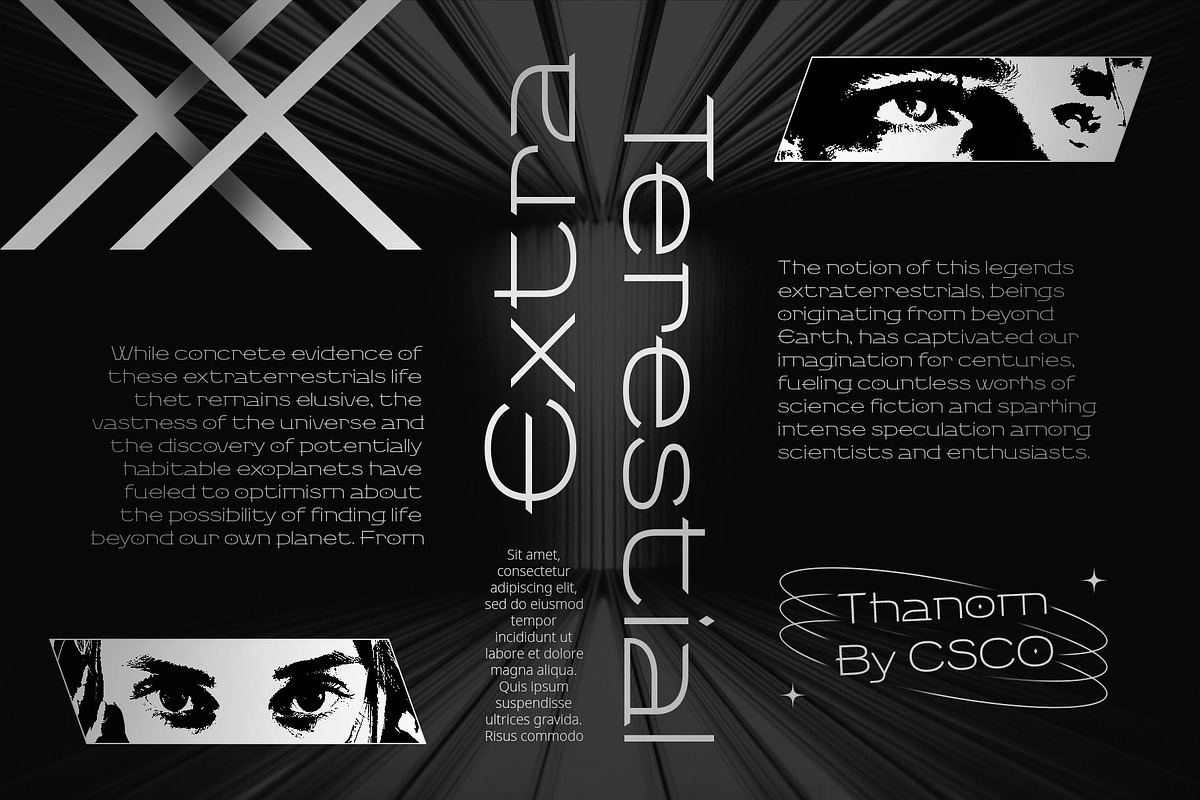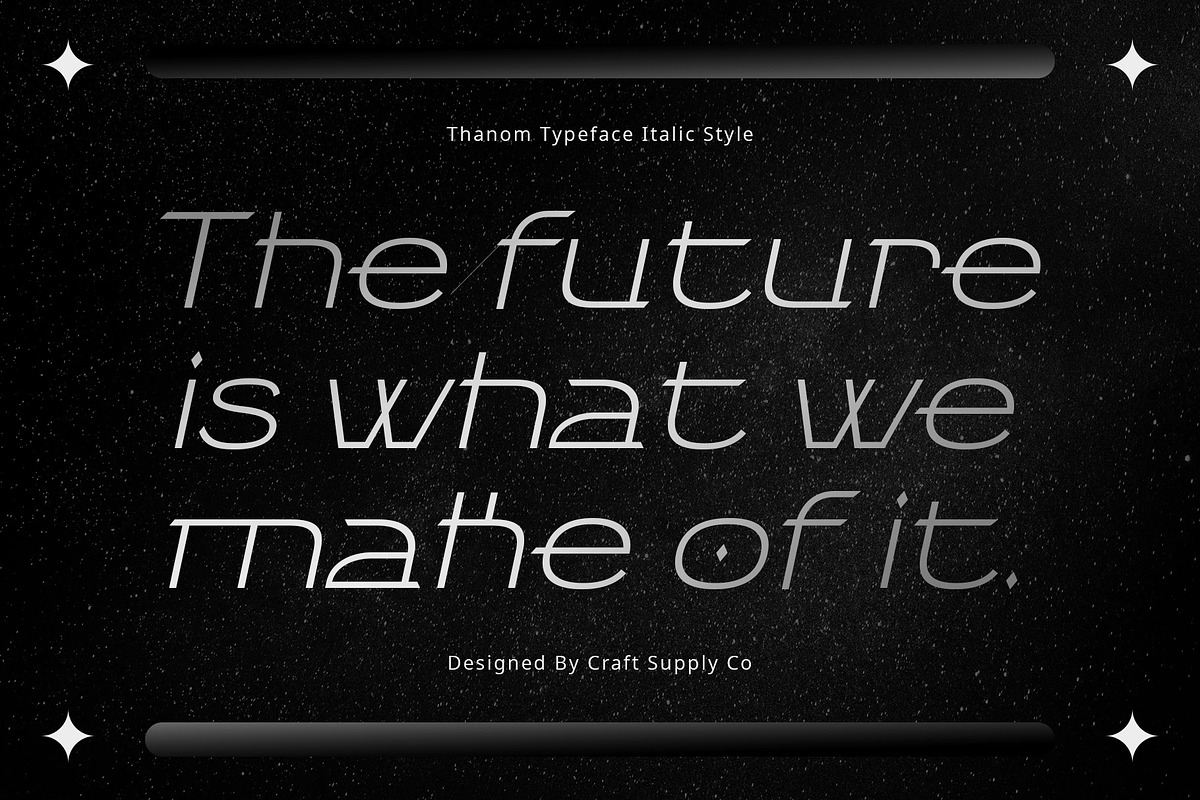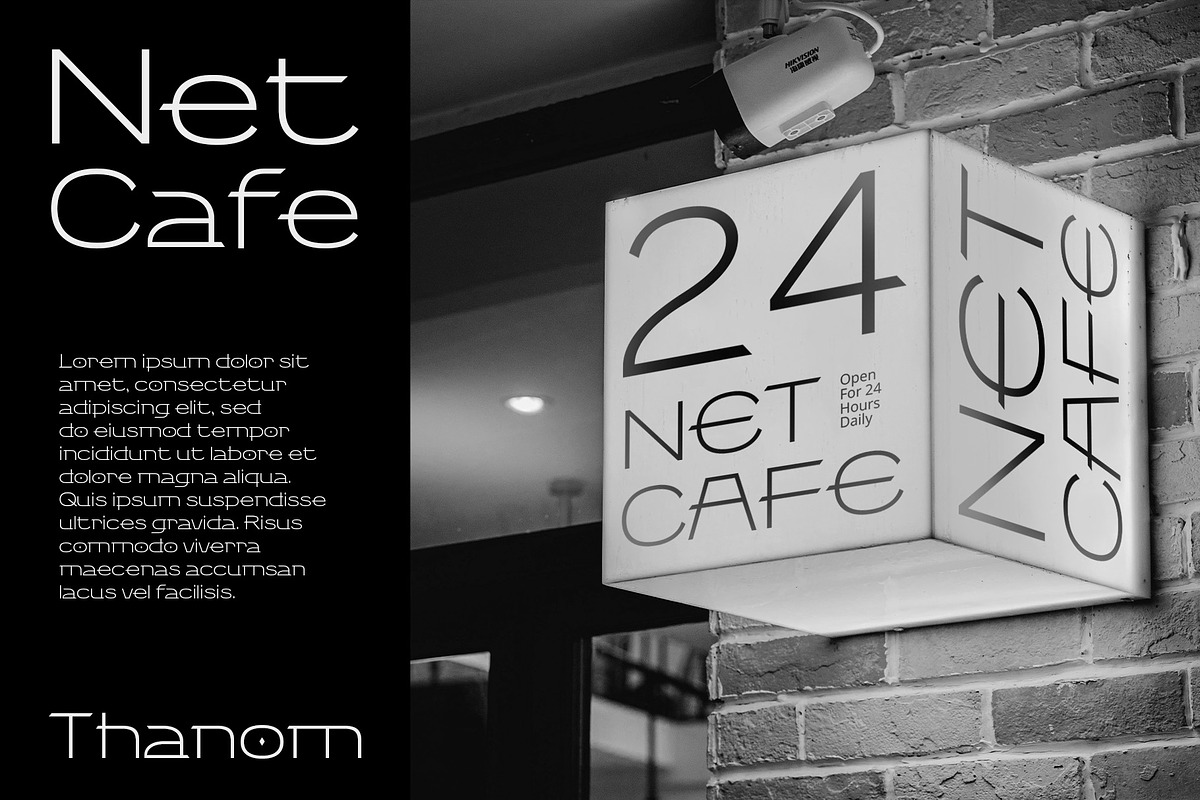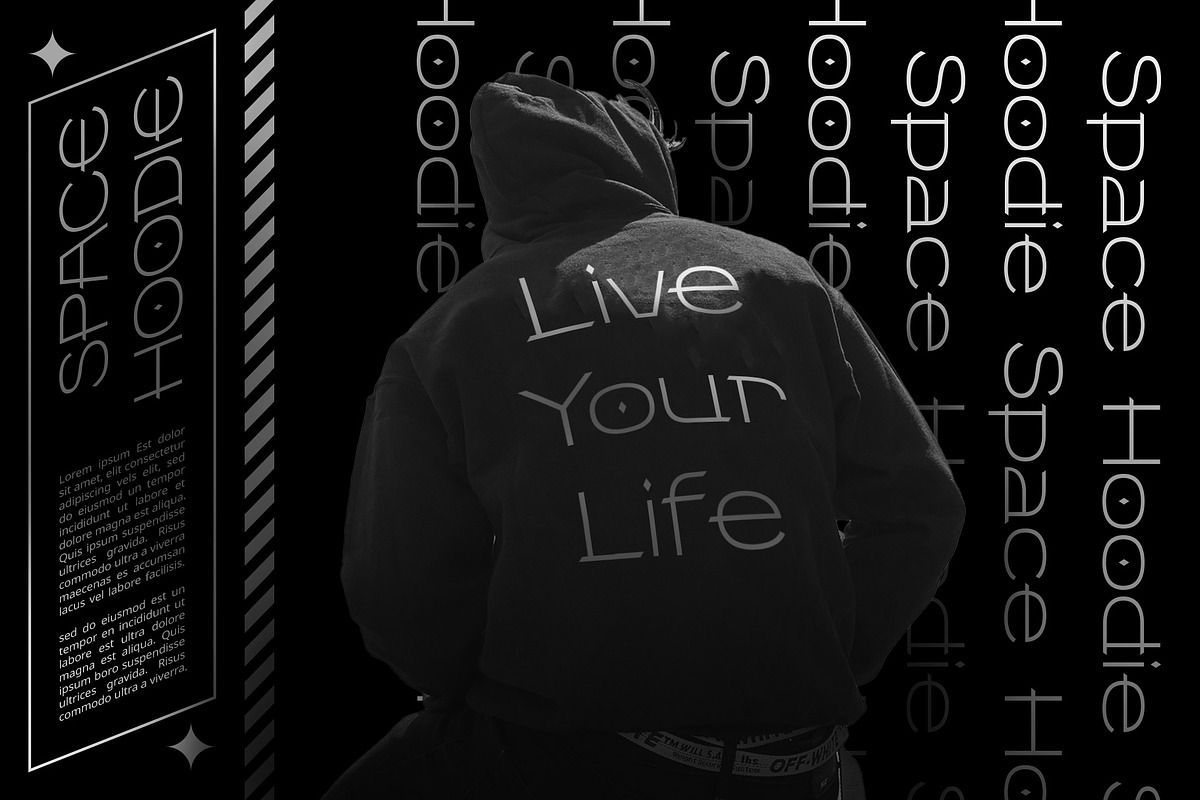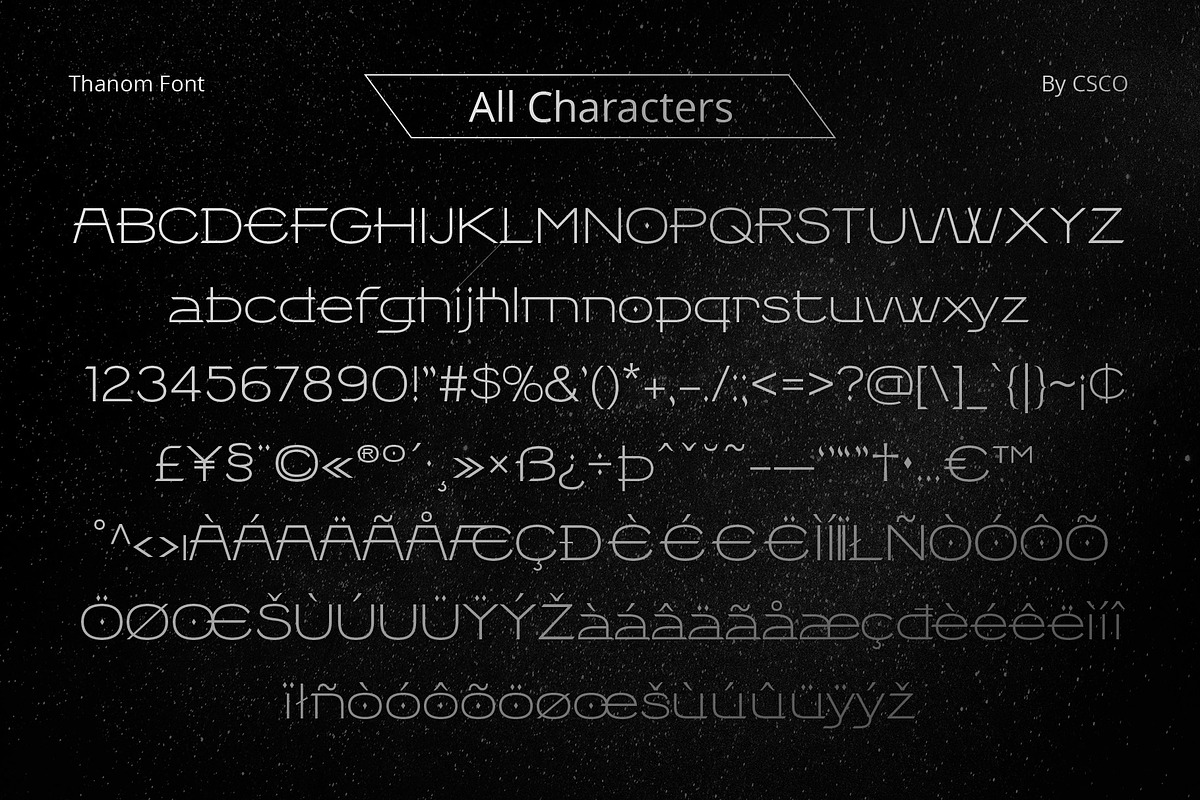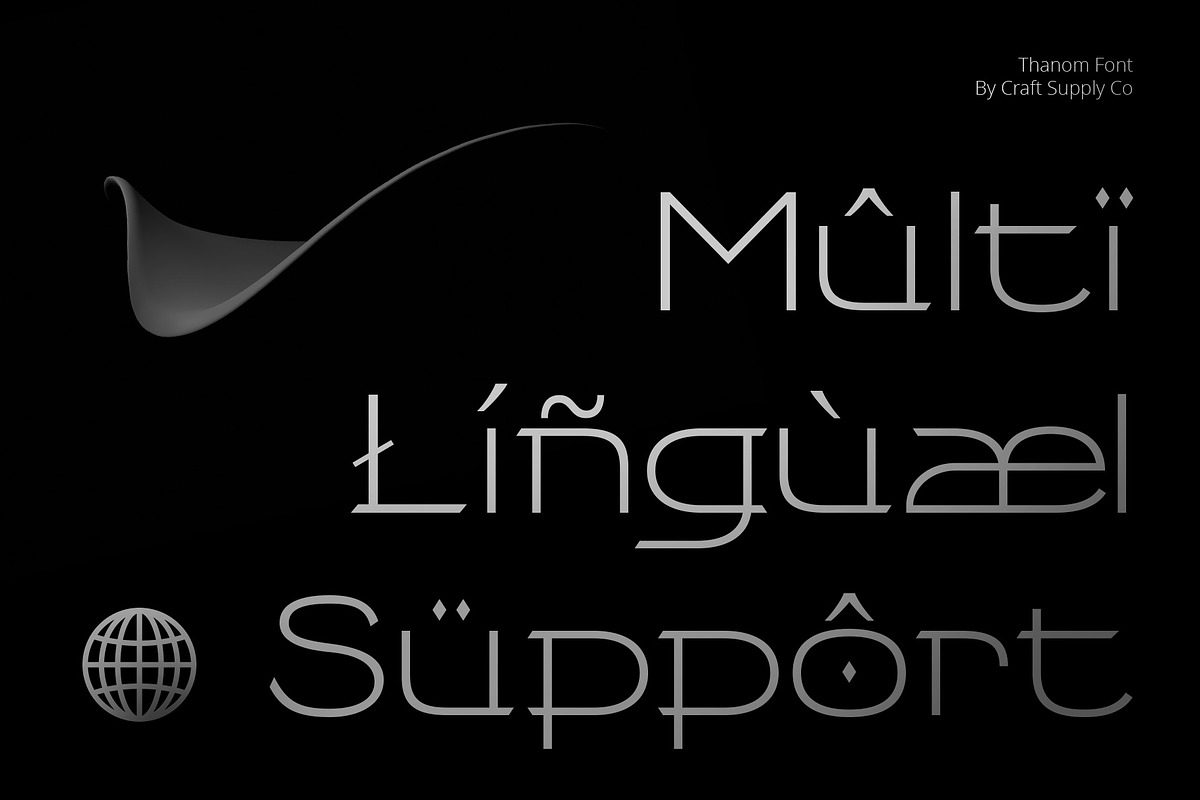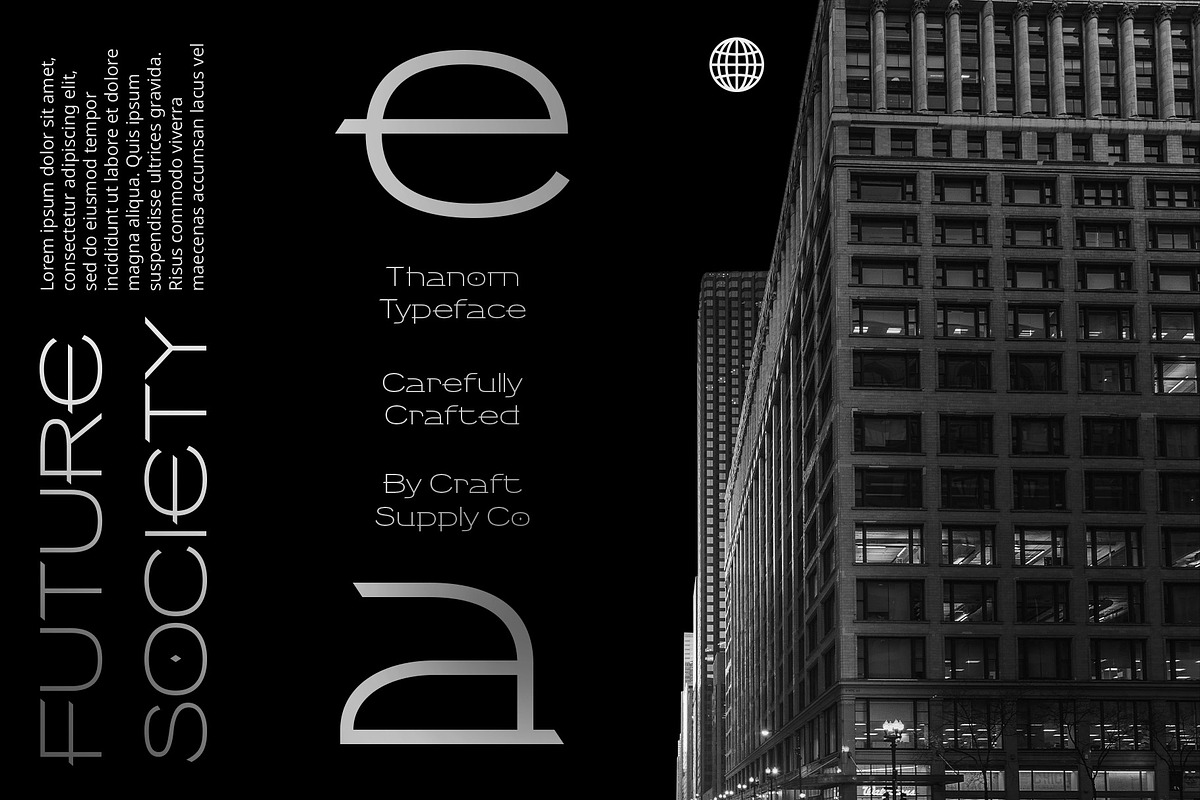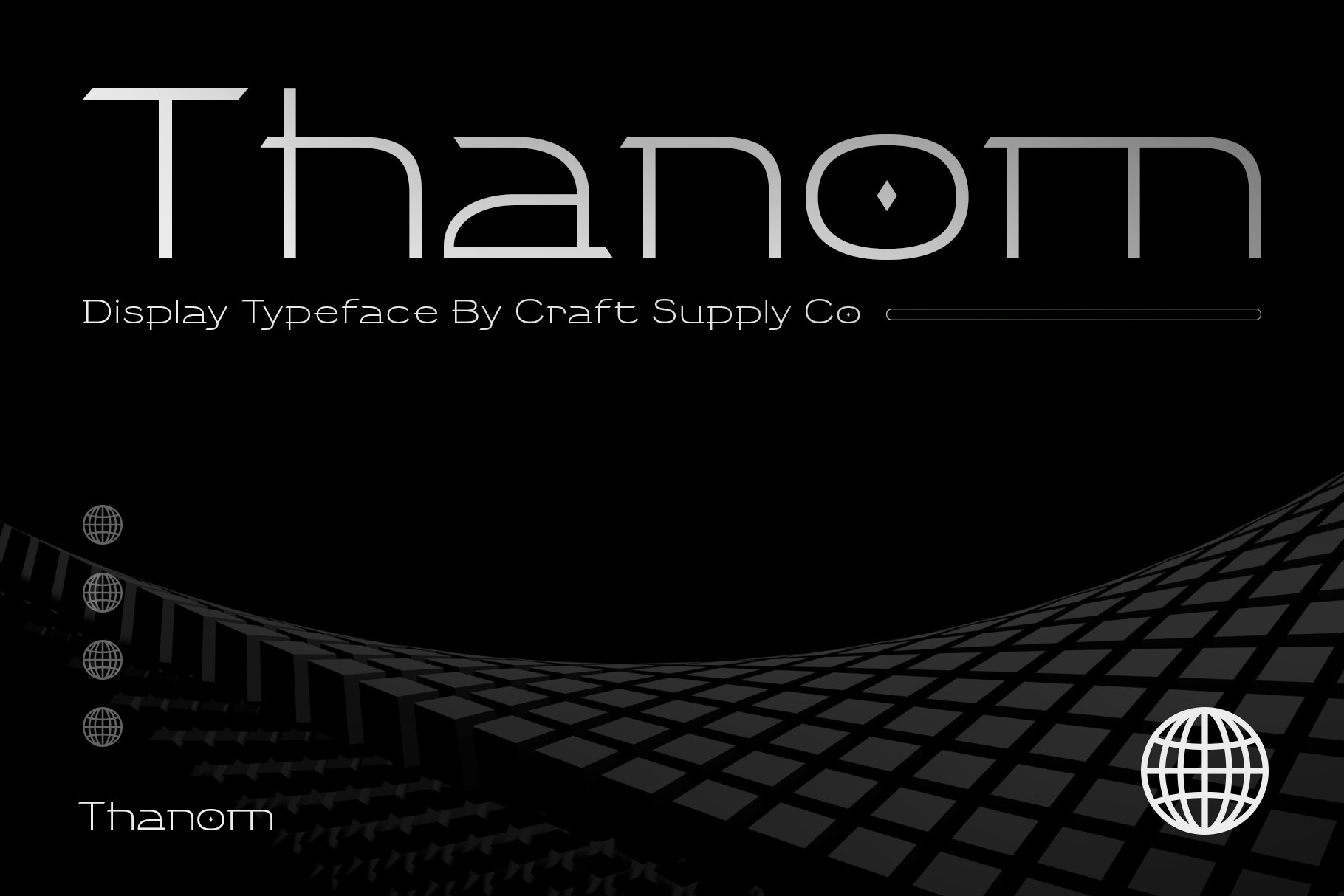
Thanom – Display Typeface
Thanom – Display Typeface: Where Future Meets Gothic
In a world where the future collides with tradition, Thanom – Display Typeface emerges as a symbol of innovation and style. Inspired by the sleek lines of tomorrow and the mystique of gothic architecture, this font brings a unique blend of modernity and tradition to your design projects.
Modern Futuristic Design
This Display Typeface embodies the essence of modernity with its sleek lines and futuristic aesthetics. Each character exudes a sense of forward-thinking design, making it perfect for projects that demand a contemporary edge.
Sleek and Versatile
This Display Typeface is not just visually striking; it’s also incredibly versatile. Whether you’re designing a sleek website interface or crafting eye-catching posters, Thanom adapts effortlessly to suit your needs, adding a touch of modern sophistication to every project.
Innovative Gothic Fusion
Drawing inspiration from the gothic architectural style, This Display Typeface offers a fresh perspective on traditional design. By infusing gothic elements with futuristic flair, Thanom creates a visual language that is both innovative and timeless.
Dynamic Visual Impact
With its bold shapes and dynamic forms, This Display Typeface commands attention and leaves a lasting impression. Whether used in headlines, logos, or branding materials, Thanom captivates audiences with its modern aesthetic and dynamic visual impact.
- Thanom Regular
- Thanom Italic